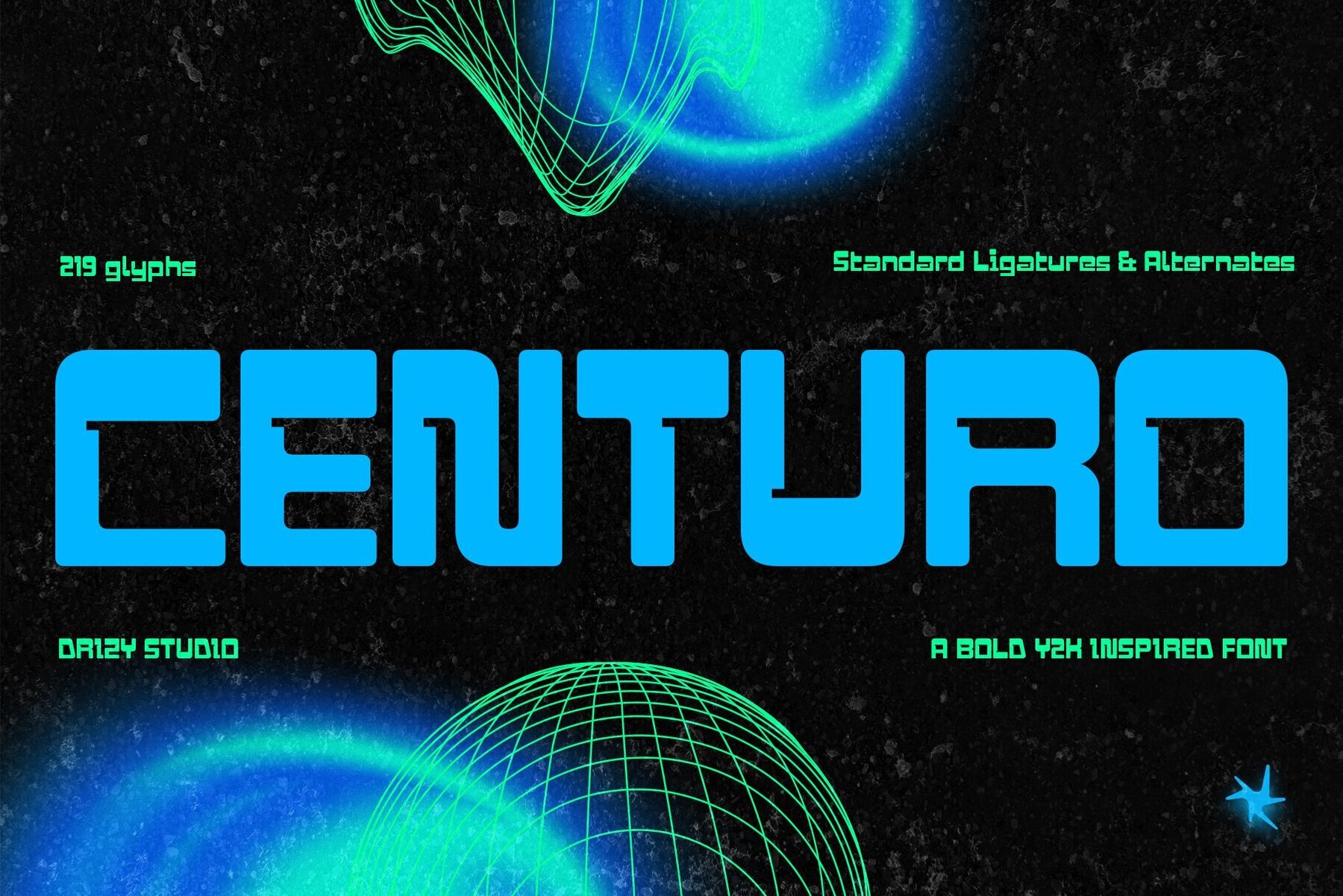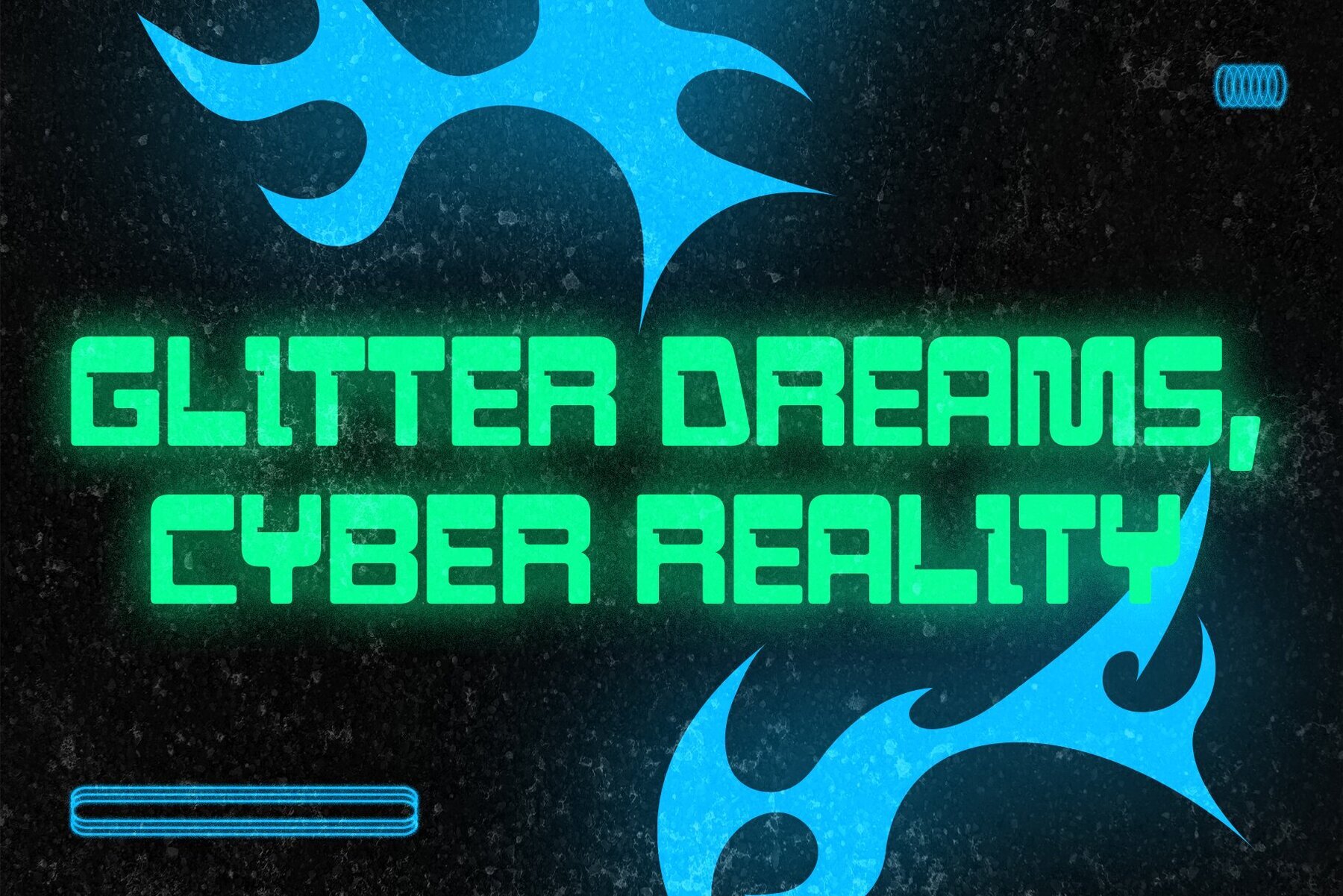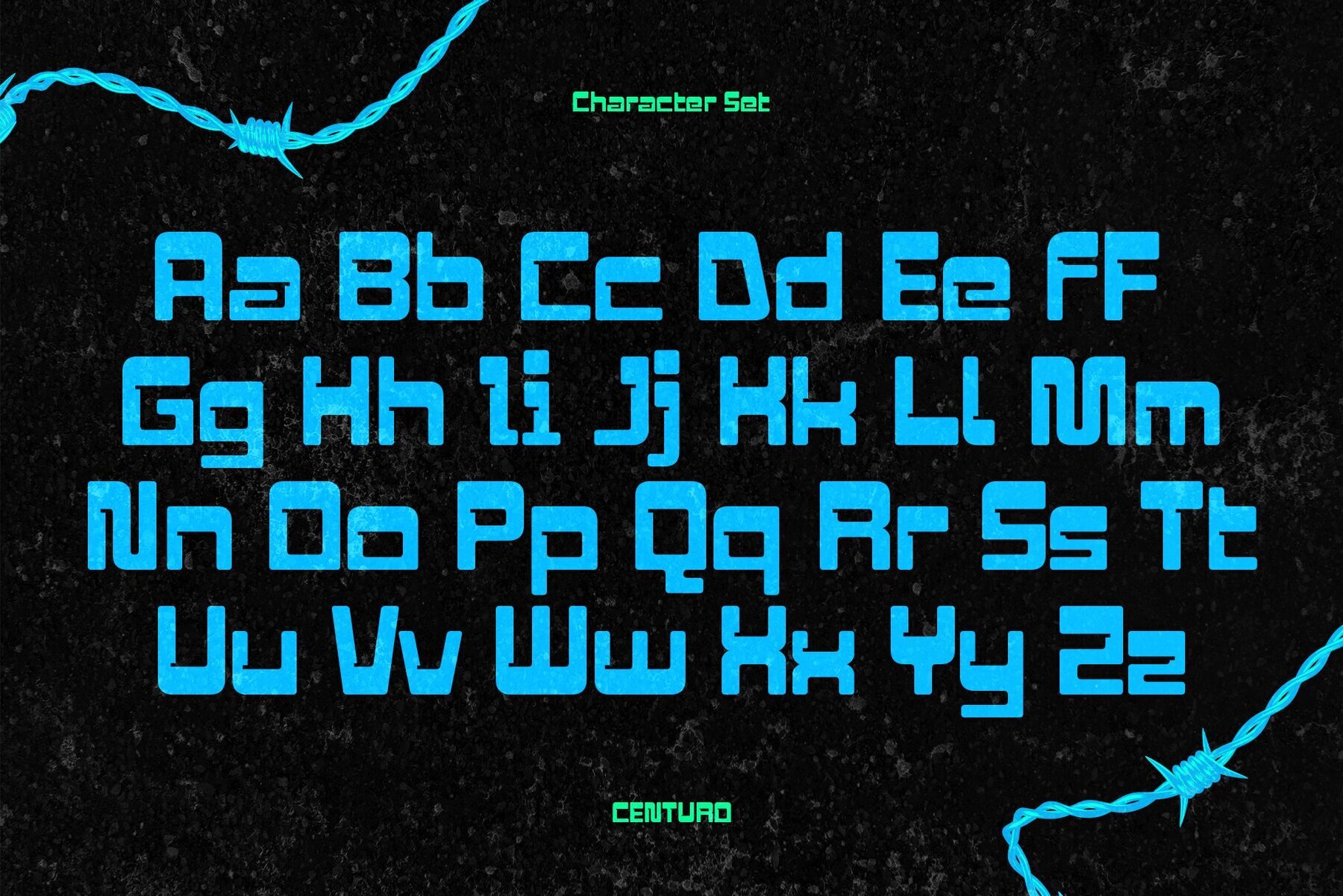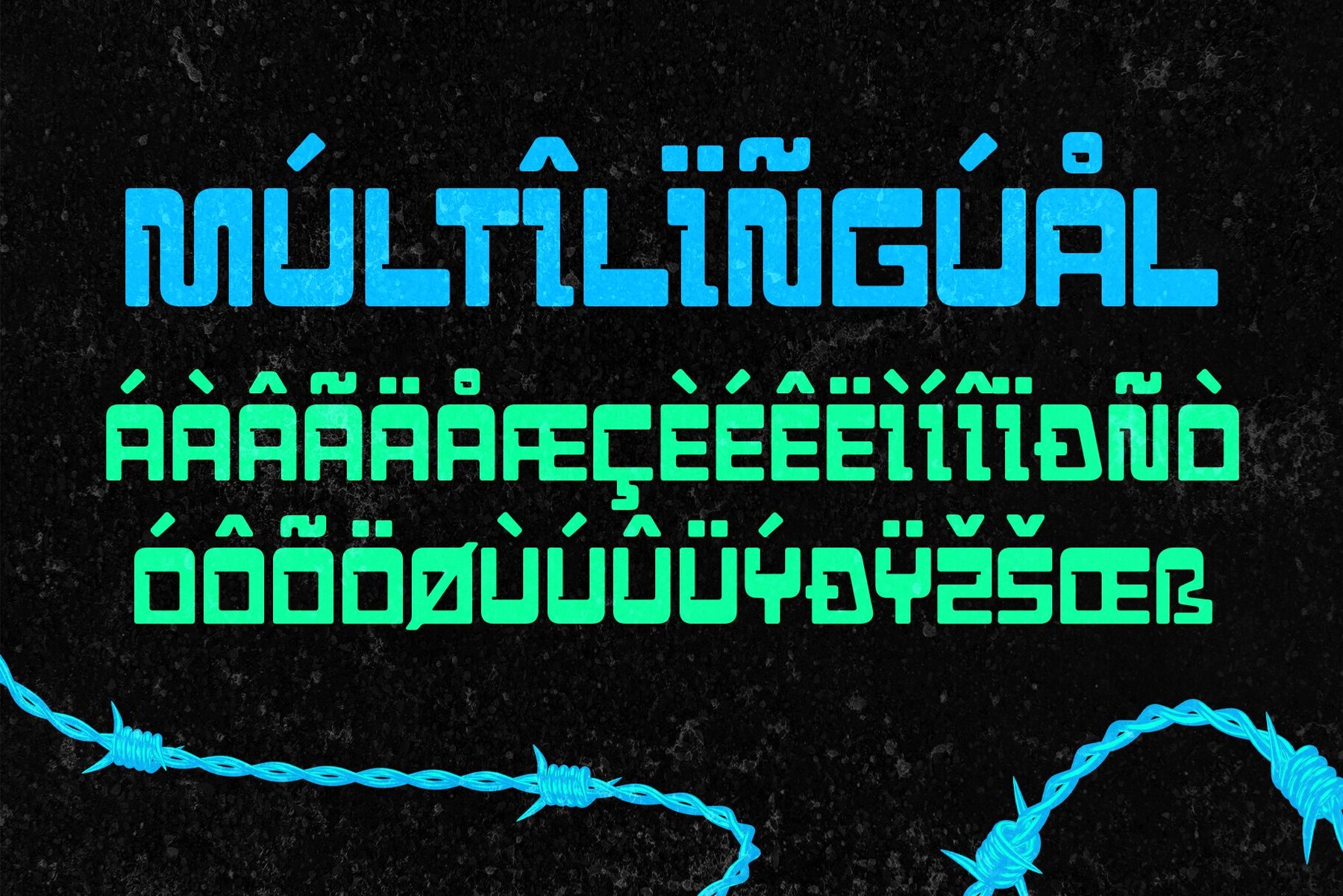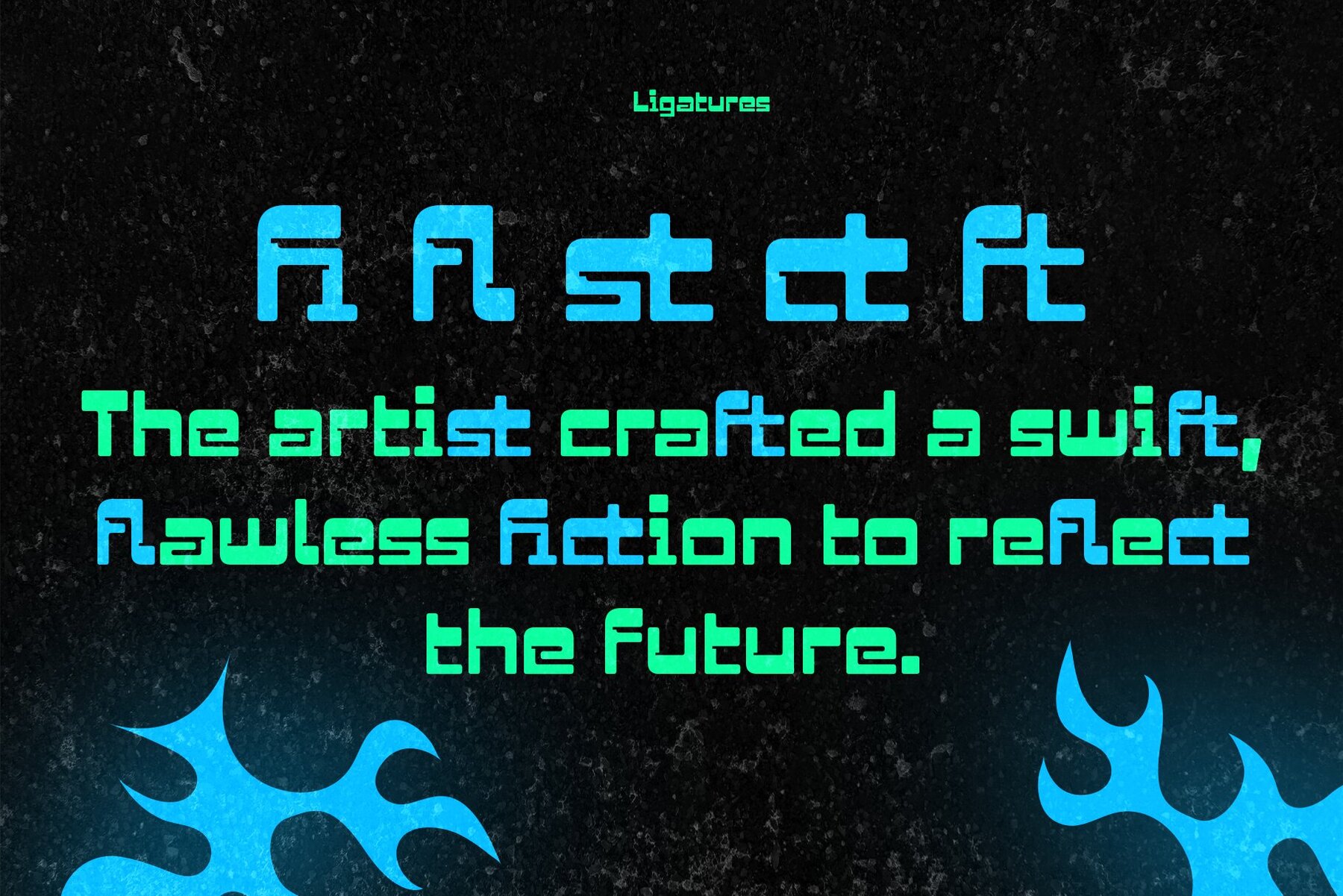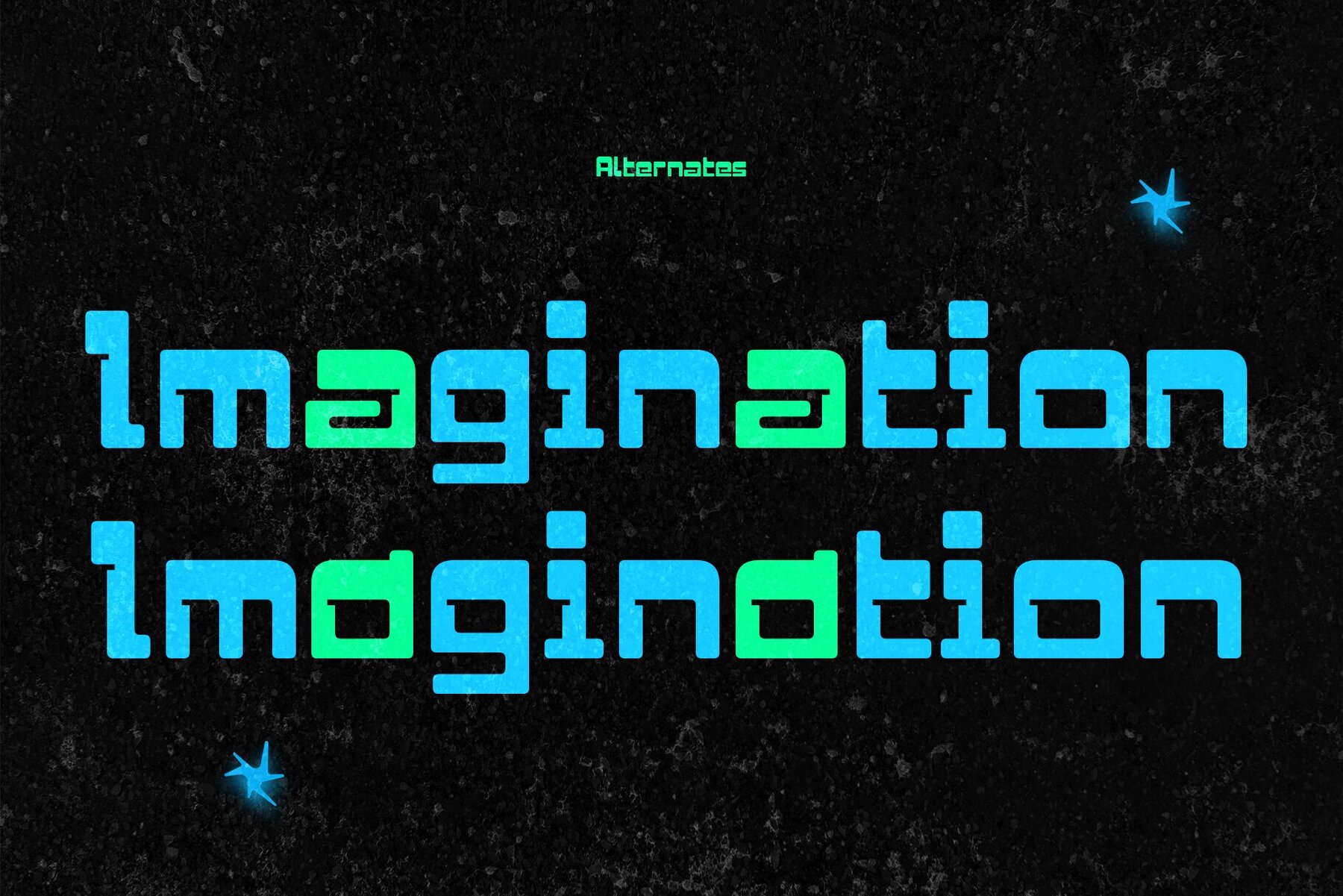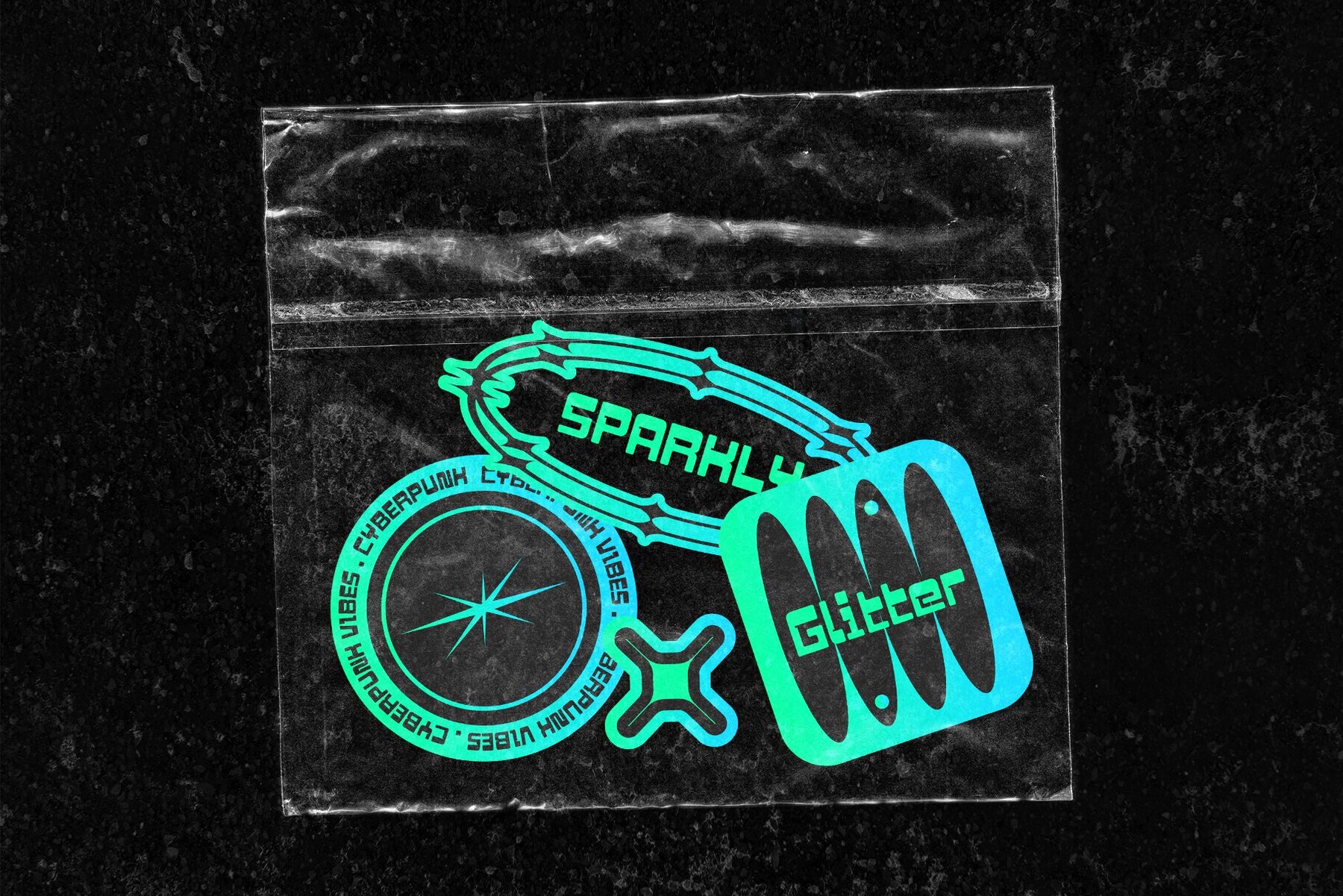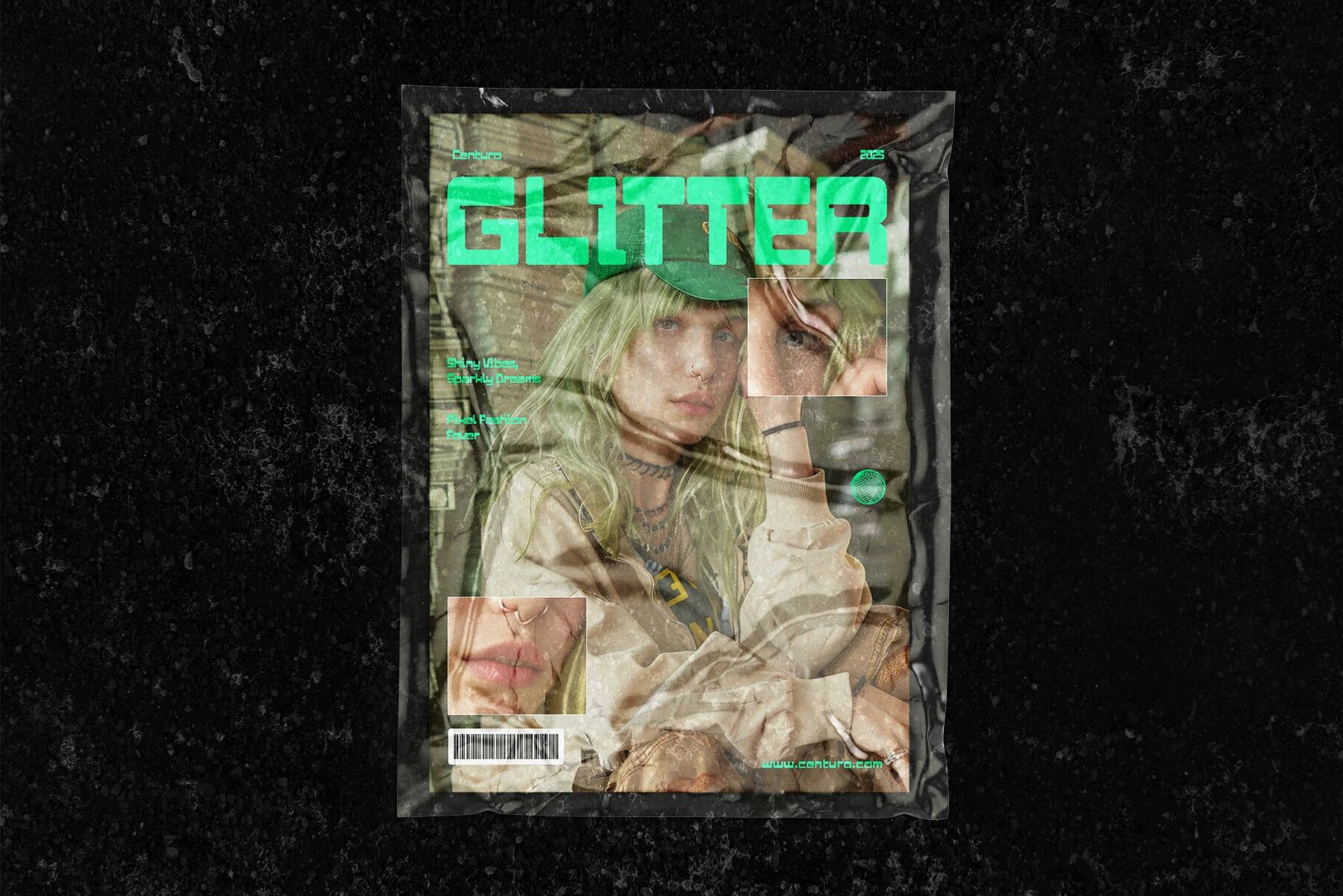
Centuro Font
Centuro Regular
Centuro captures the upbeat, energetic mood of the early 2000s with bold letterforms, smooth curves, and a tech-inspired focus. Designed to stand out, this Y2K-style font pairs vintage charm with a modern attitude. Centuro is adaptable to a range of creative projects, from logos and posters to apparel and digital graphics. This typeface brings a confident, playful character to any concept that calls for a retro-futuristic identity. Its strong lines and nostalgic vibe make it ideal for projects needing eye-catching design with a clear nod to Y2K culture.Centuro Y2K Bold Font